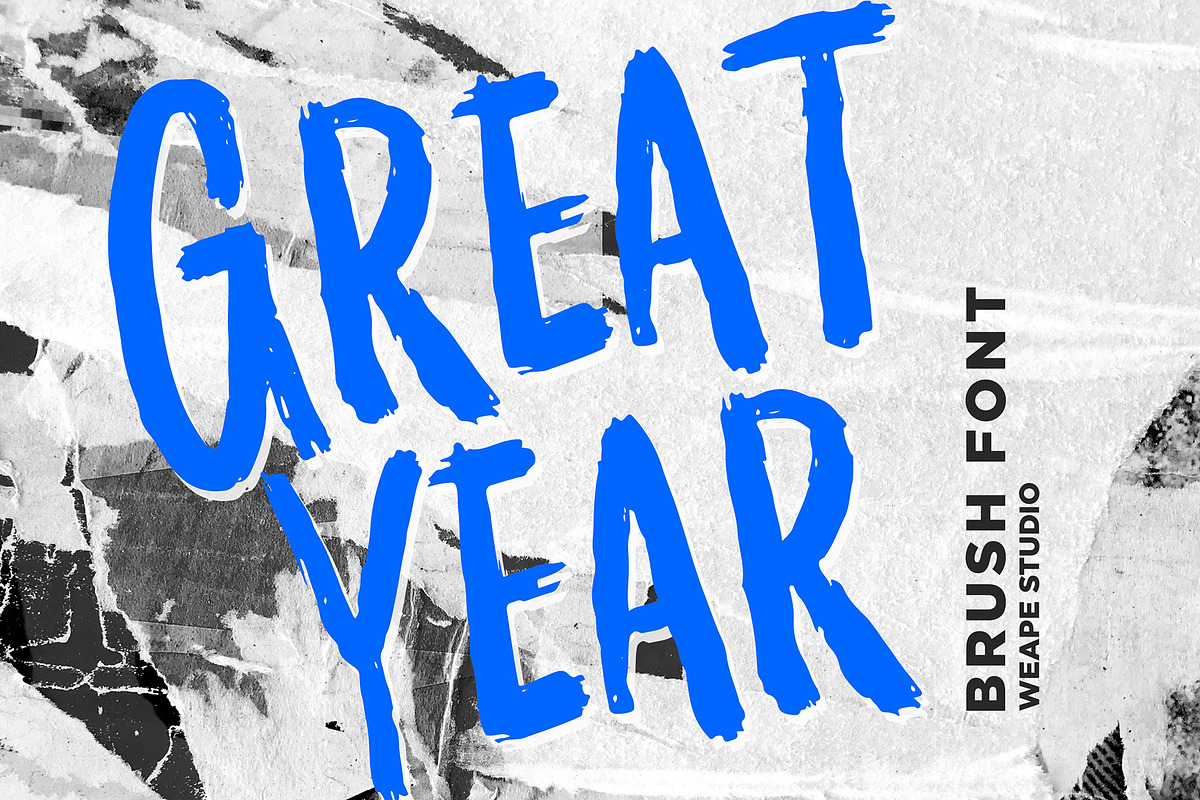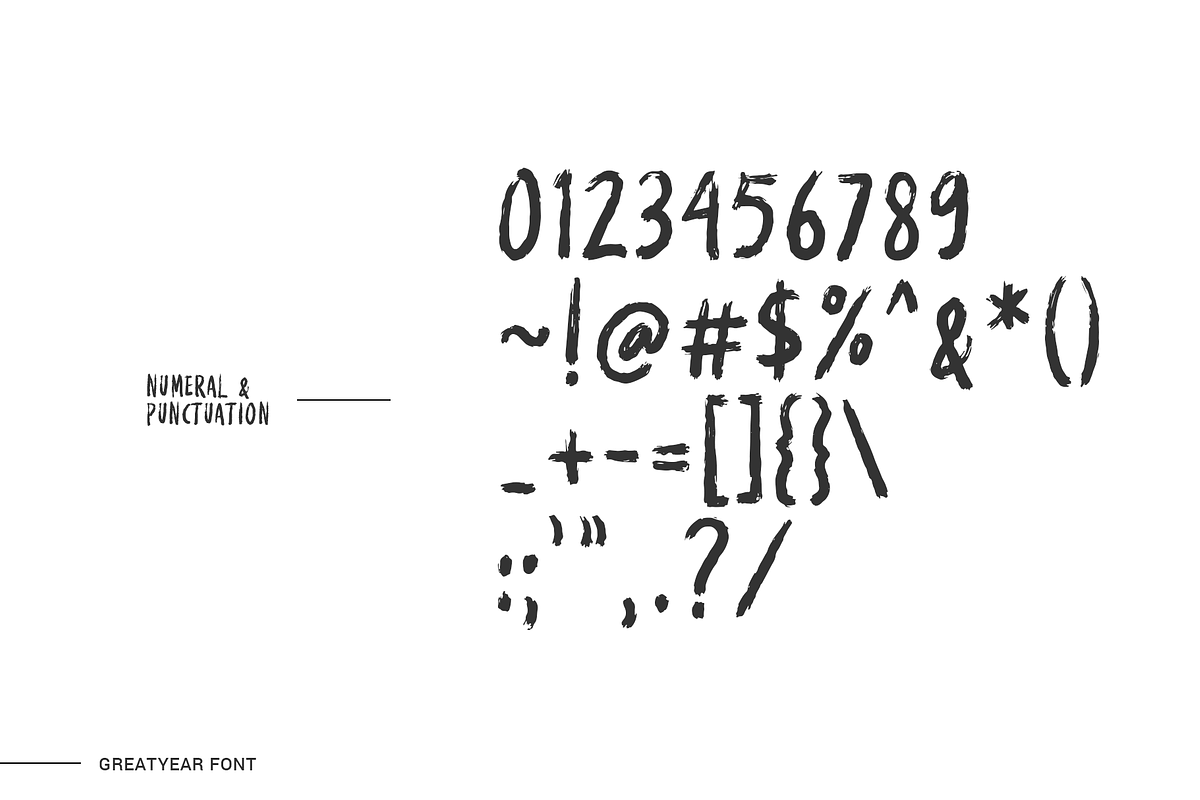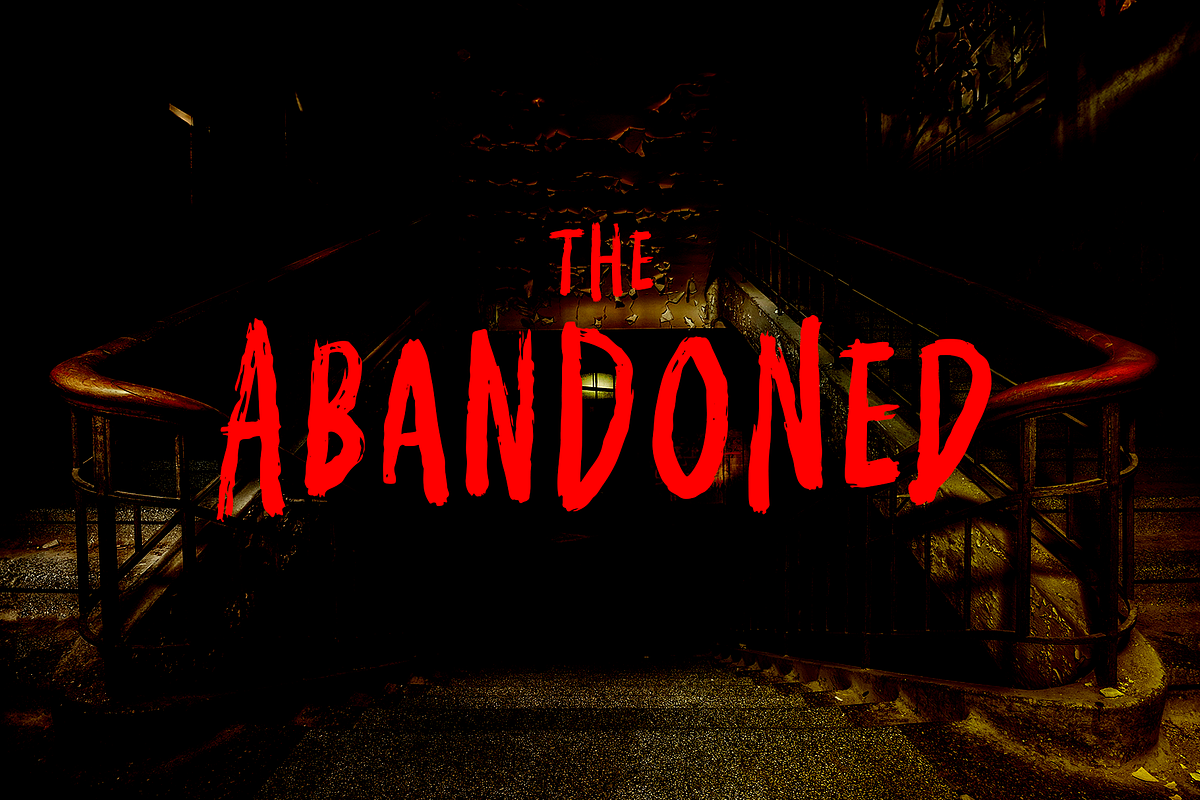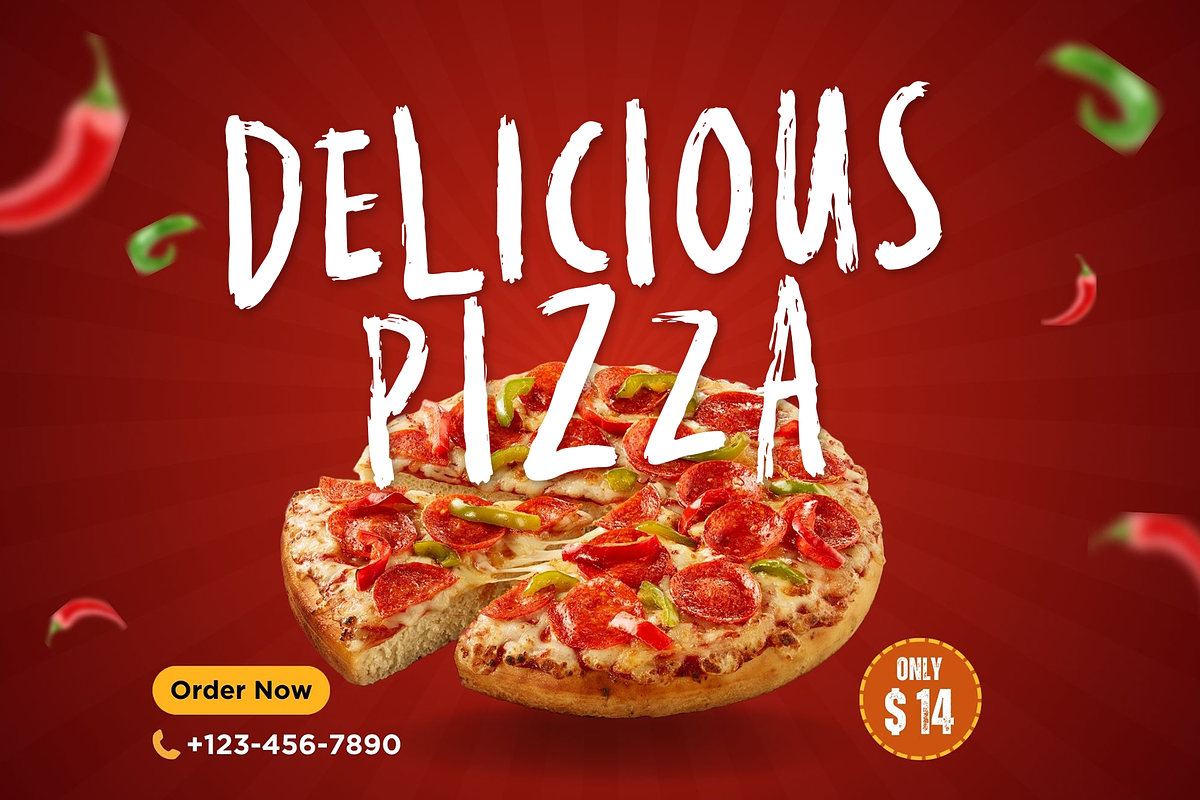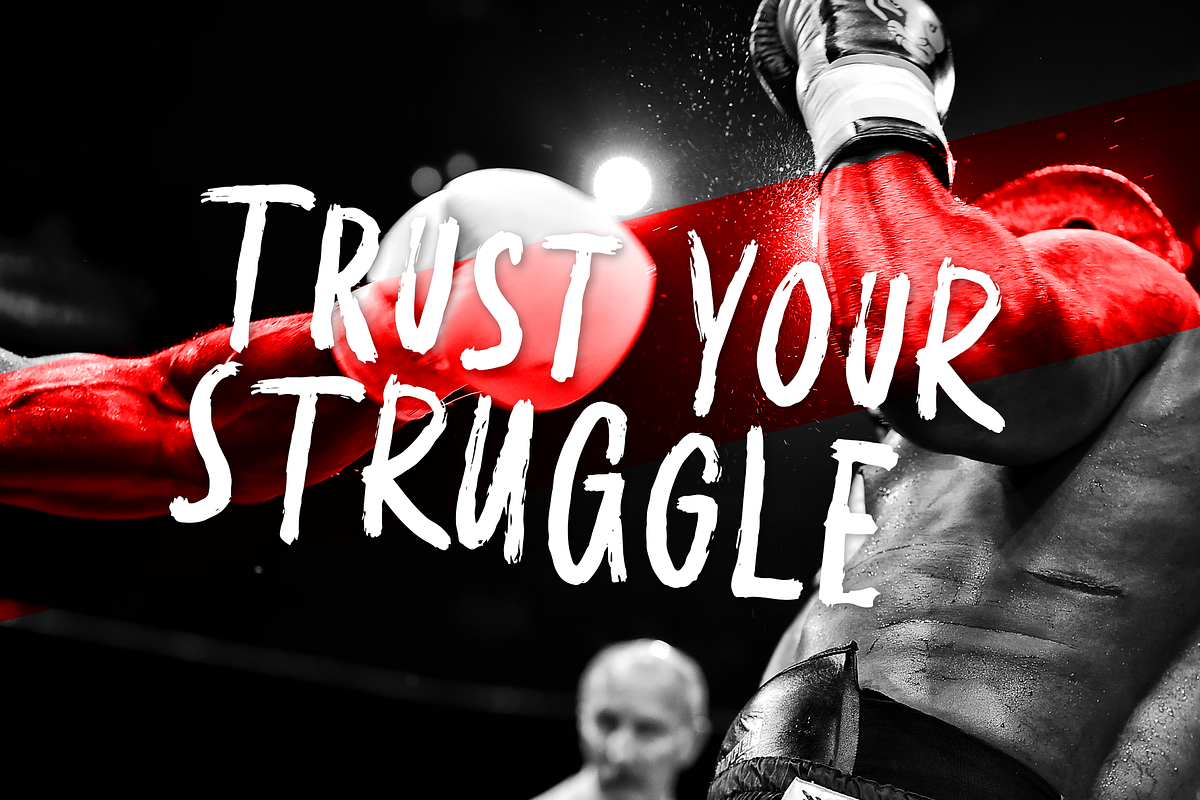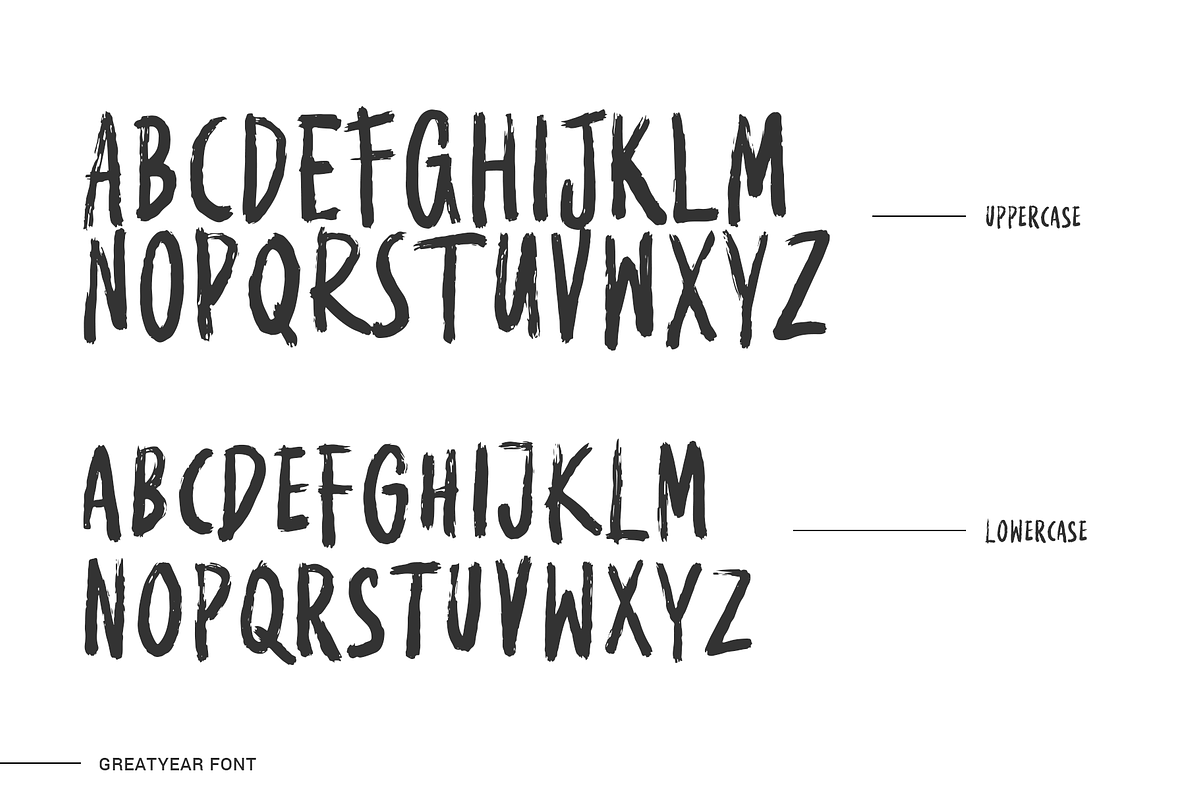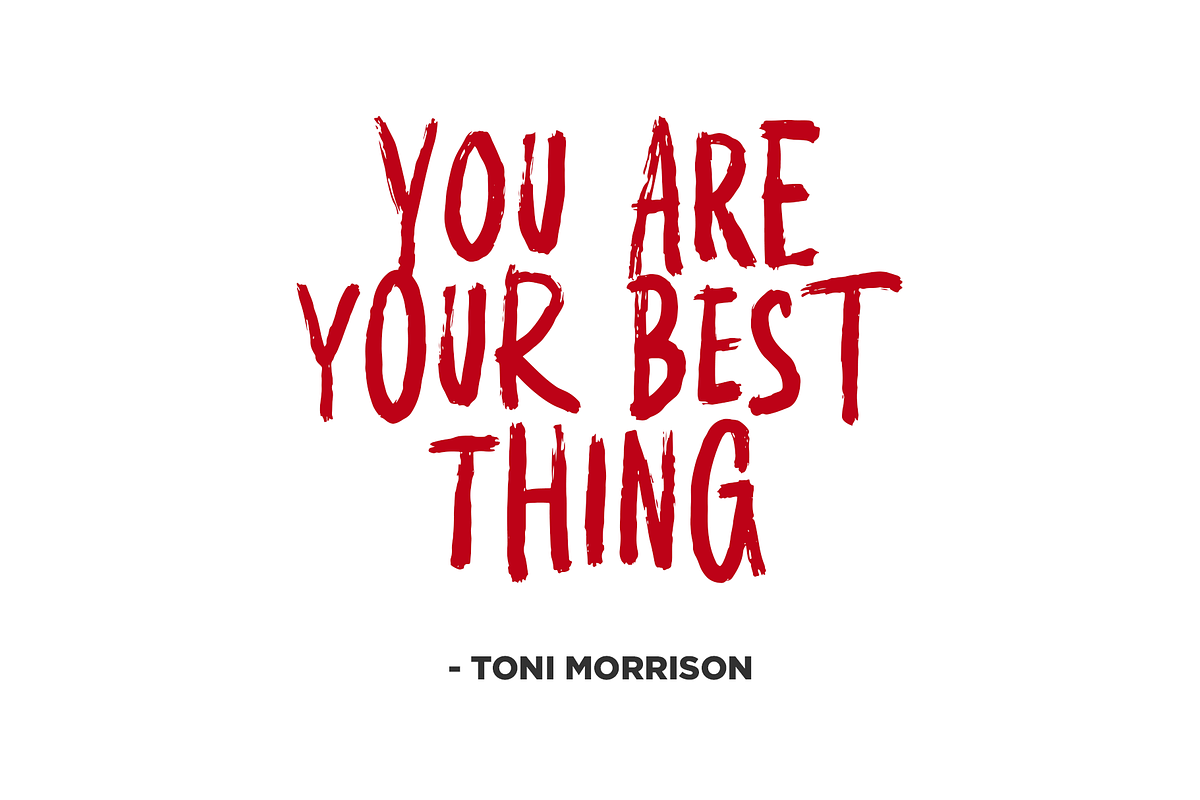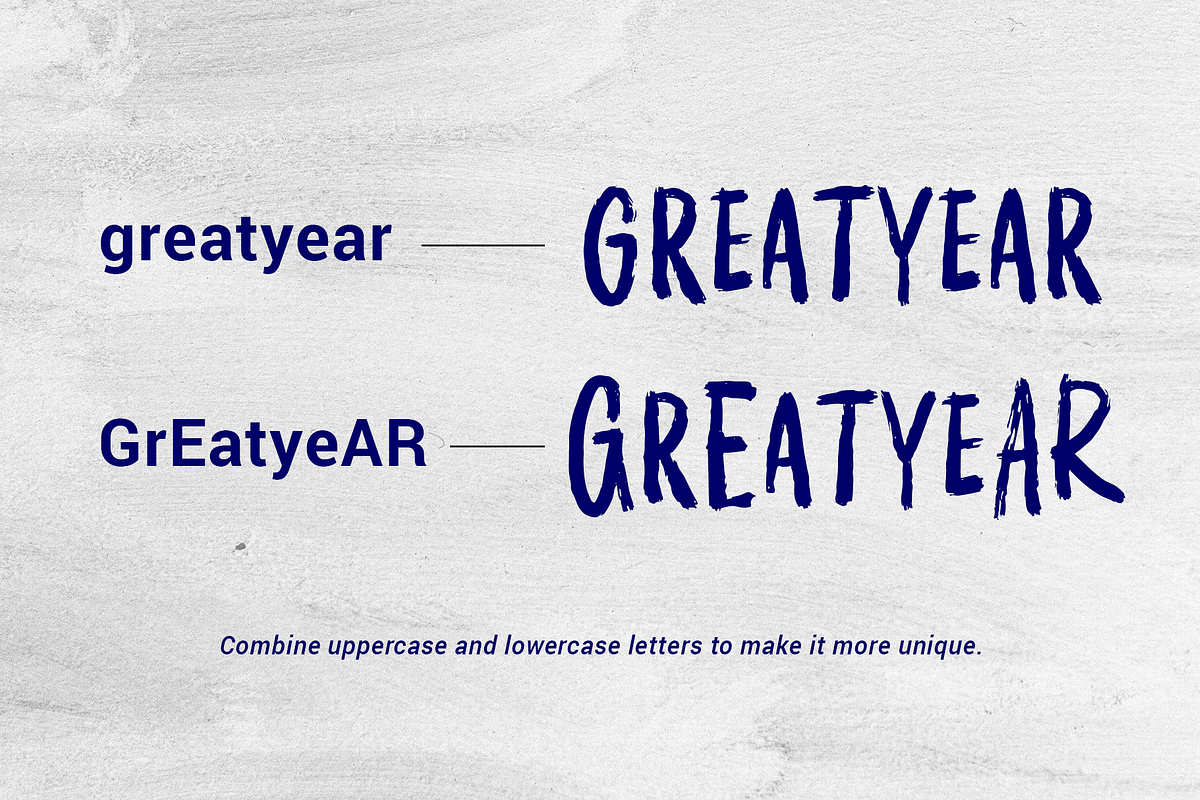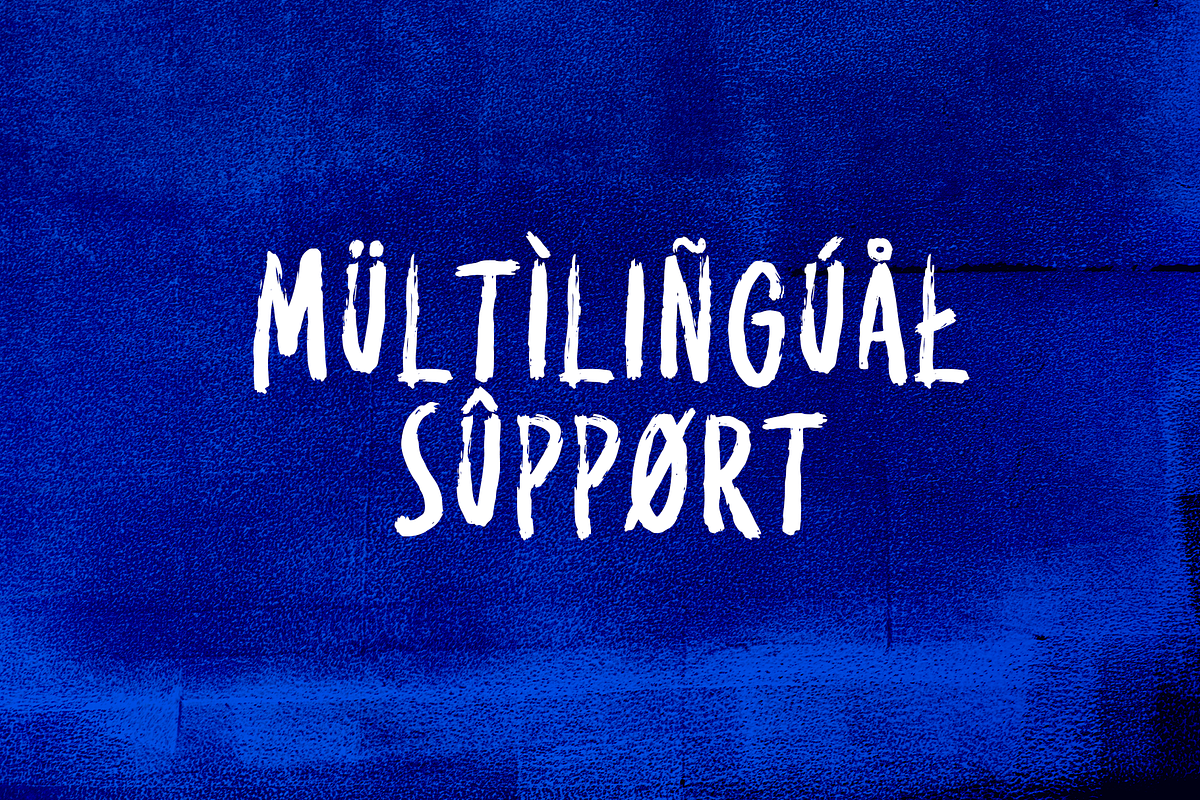
Greatyear - Brush Font
Introducing Greatyear - Brush Font, handwriting realistic brush font with all caps style. You can combine a unique uppercase and lowercase, so it looks like natural handwriting.
And this font is perfect for branding, poster, band, horror, helloween, poster, apparel, title, social media post, ad banner, book cover, product packaging, handwritten quotes, and advertising.
- Multilingual language